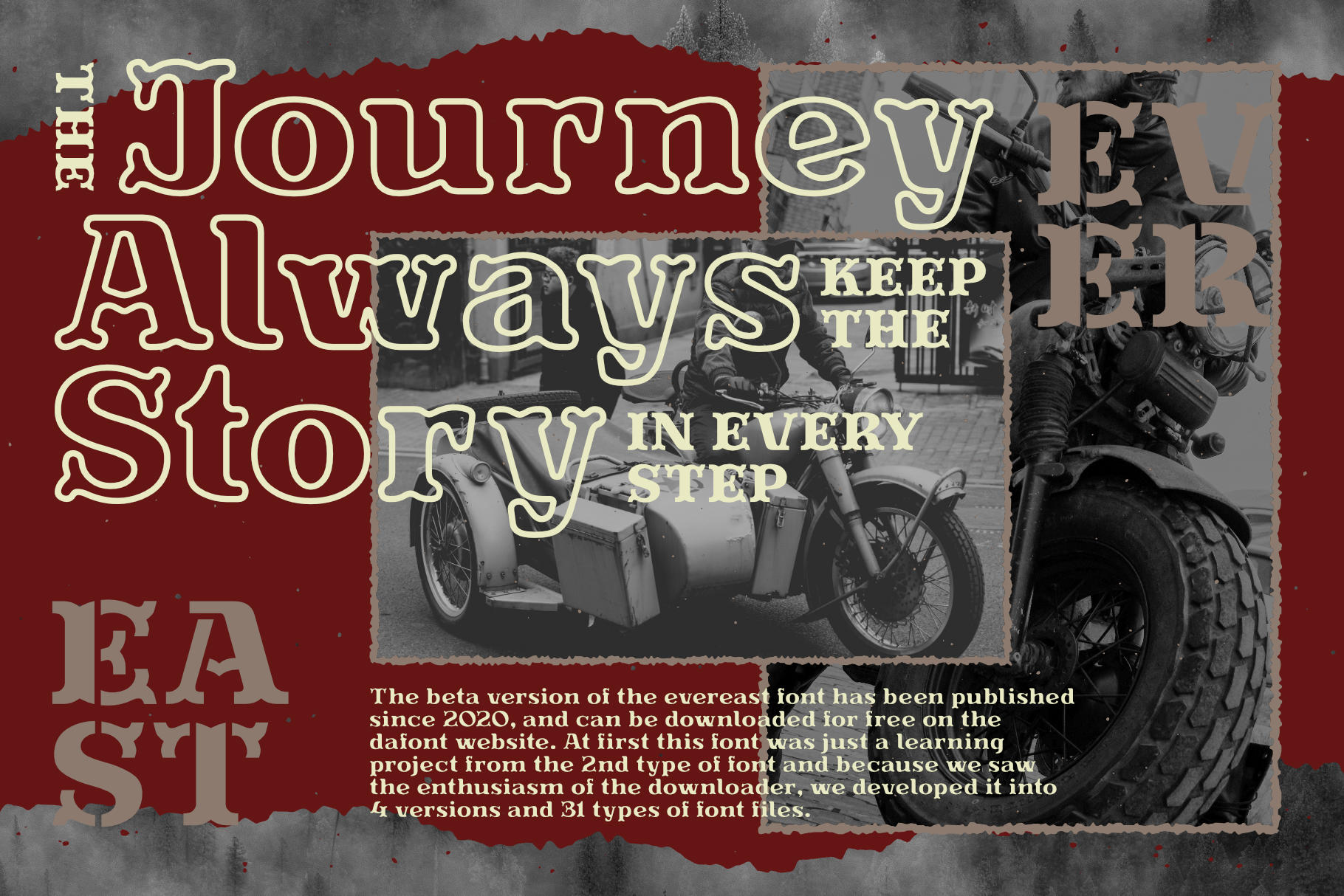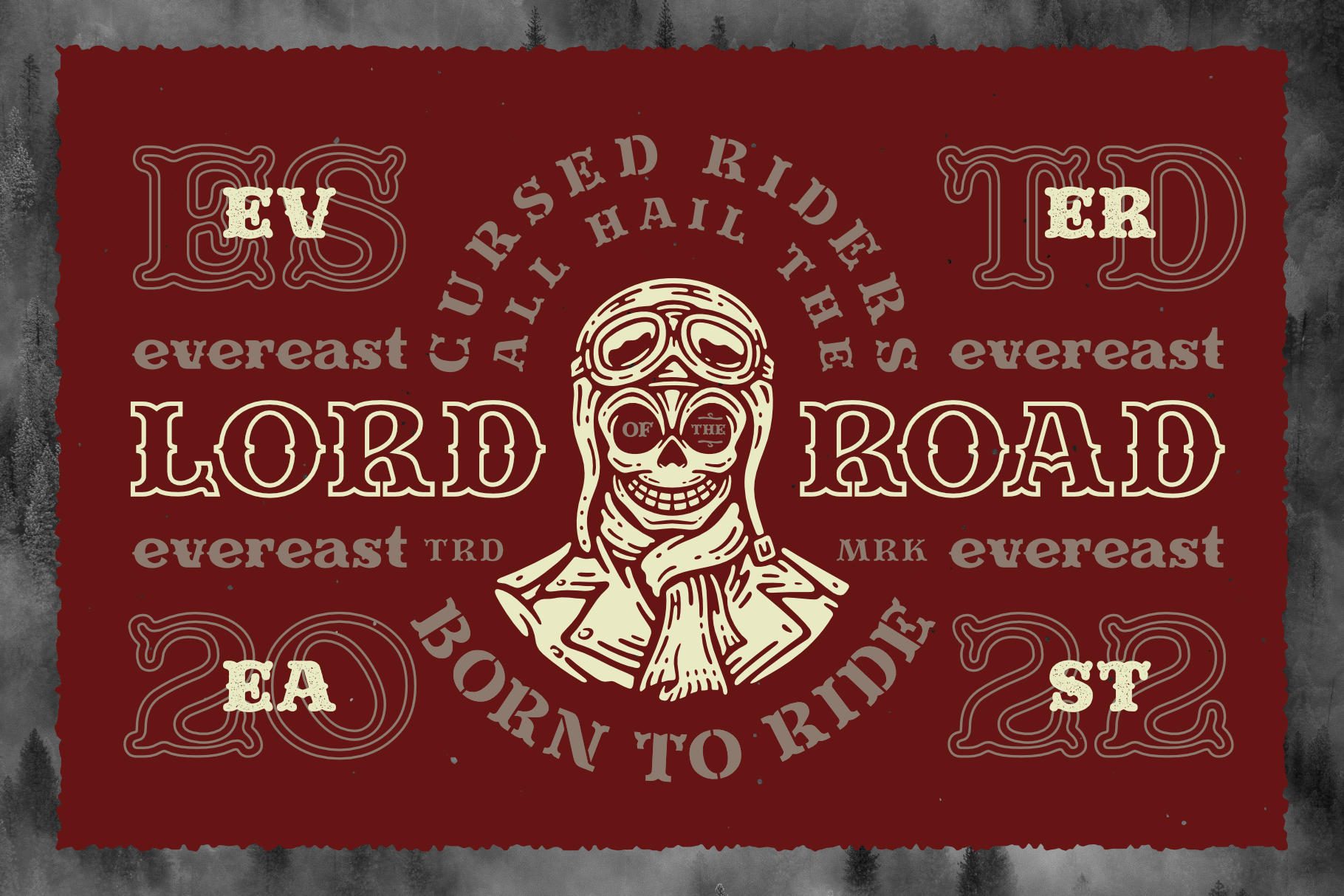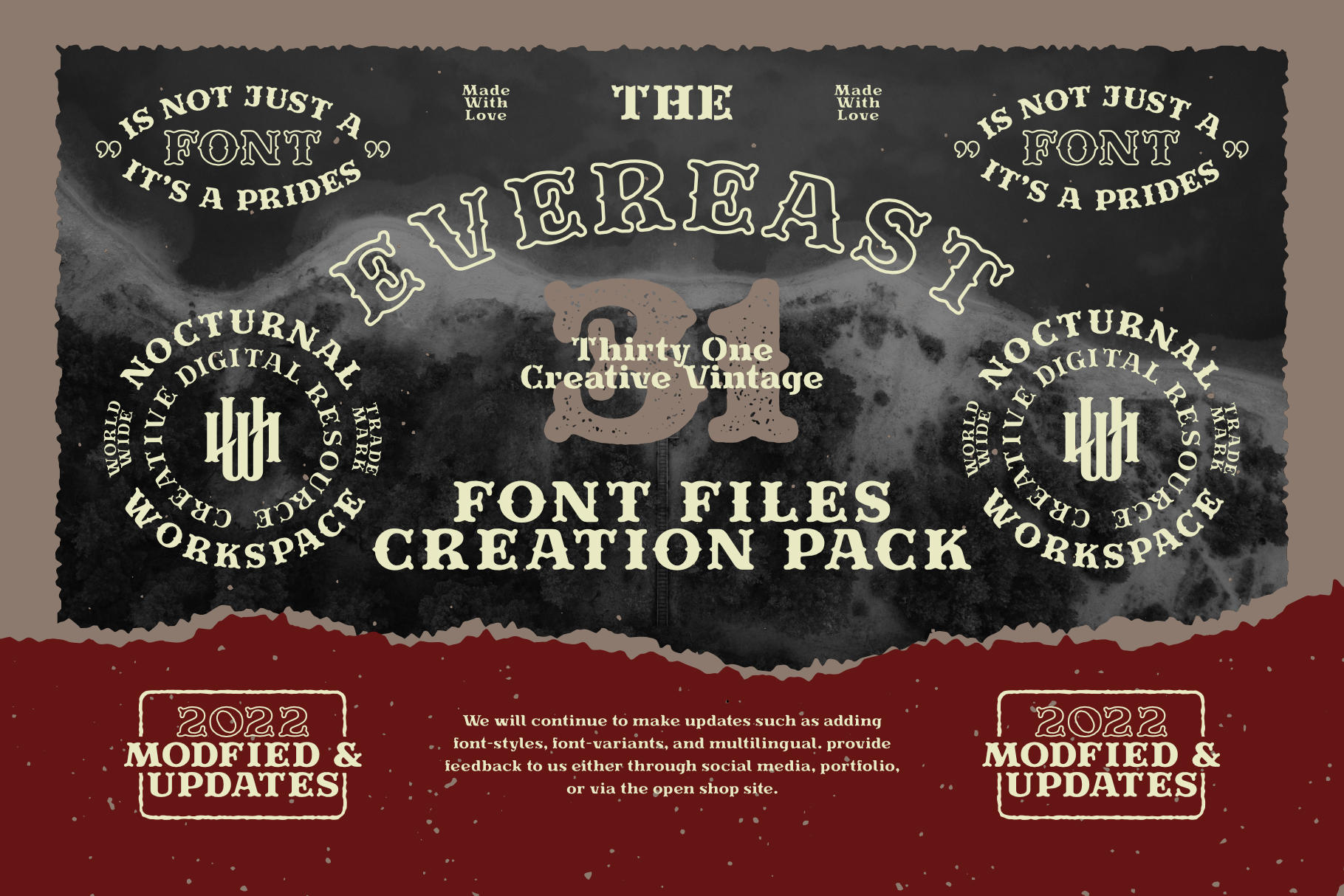
Evereast Collection Display Font
The beta version of the evereast font has been published since 2020, and can be downloaded for free on the dafont website. At first this font was just a learning project from the 2nd type of font and because we saw the enthusiasm of the downloader, we developed it into 4 versions and 31 types of font files.
- 4 versions. Evereast with style slab serif, western slab, soft edge, western edge (.ttf + .otf)
- 31 types of font files include Regular, Bold, Light, Hollows/Outlines, Rough, Italic, Stencil
- Includes a range of multilingual characters.
Evereast is suitable typeface for various purposes like logotype, signage, label, poster, dropcap, titles, letterhead, book cover and etc.